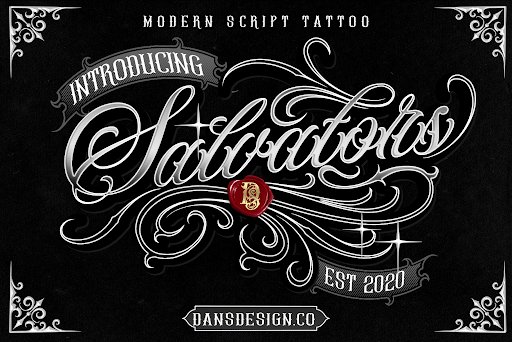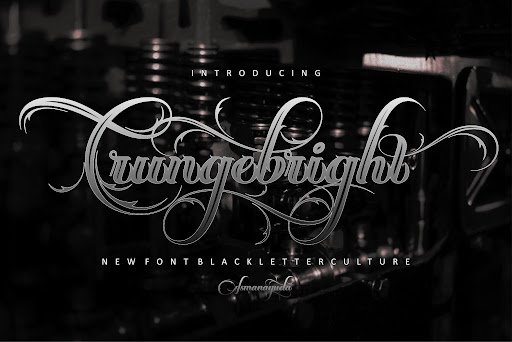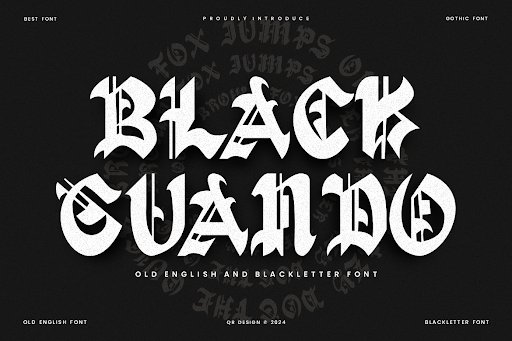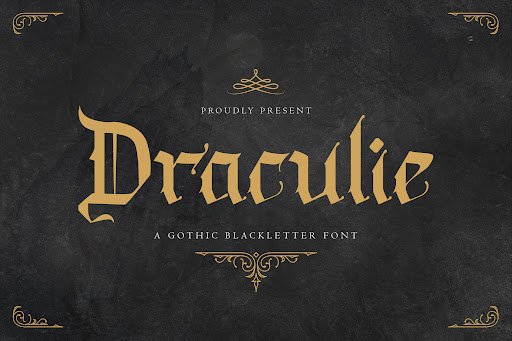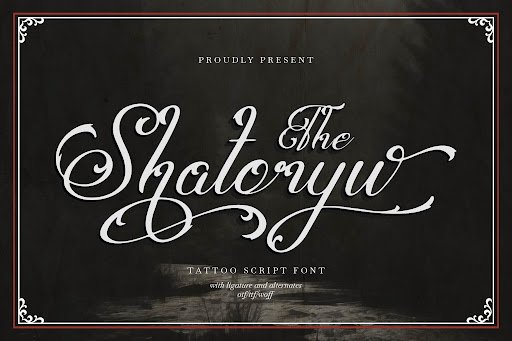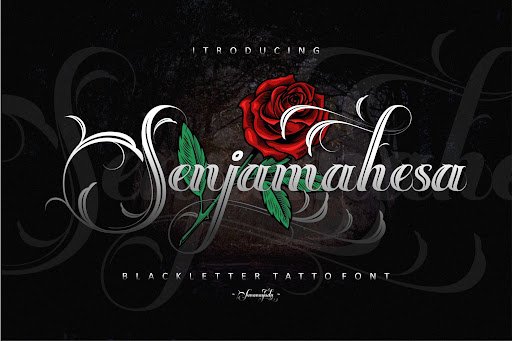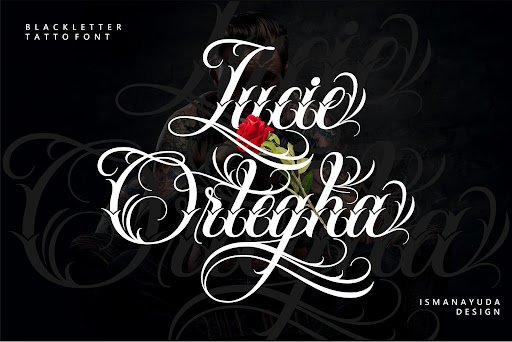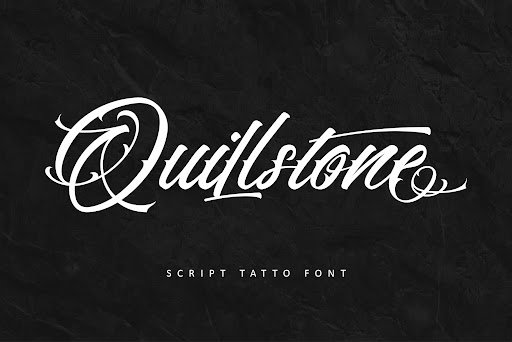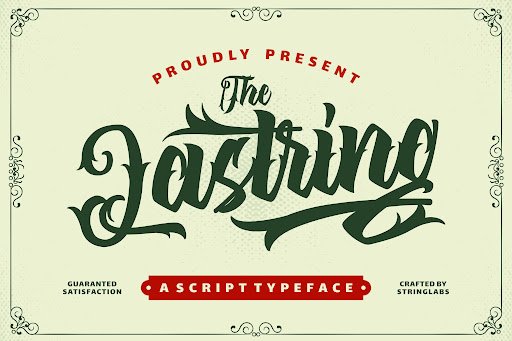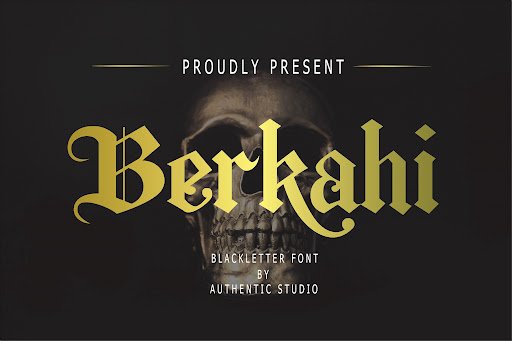
19 Killer Tattoo Fonts to Elevate Your Next Ink Design (2026)
Whether you are a professional tattoo artist drafting a custom sleeve or someone planning their very first piece of ink, choosing the perfect typography is crucial to the design’s impact. The right lettering can transform a simple quote or name into a breathtaking work of art that lasts a lifetime. Explore this carefully curated collection of the best tattoo fonts available today, designed to bring your boldest visions to life.
1. Salvators Font by Dansdesign
Salvators by Dansdesign is a powerful, striking font that captures the raw essence of traditional tattoo artistry. Its intricate details and bold strokes make it an ideal choice for large chest pieces or dominant back tattoos where the text needs to command attention.
2. Crungebright Font by ismanayuda
Crungebright brings a unique, edgy grunge aesthetic to the world of tattoo typography. Perfect for rebellious or alternative ink designs, this font features distressed textures that look incredibly authentic when translated to the skin.
Created by ismanayuda, Crungebright is versatile enough to be used for band logos, streetwear designs, and, most importantly, badass tattoos. Grab this font today to add a touch of raw, unpolished energy to your next creative project.
3. Black Guando Font by qrdesignstd
If you’re searching for a font that screams classic gothic style, Black Guando is the perfect match. This blackletter-inspired typeface is a favorite for chicano-style tattoos, offering sharp, dramatic angles and elaborate embellishments.
4. Draculie Font by TypeFactory
Draculie channels a dark, mysterious vibe that is perfect for gothic and horror-themed tattoos. Its elegant yet slightly eerie letterforms make it a standout choice for anyone looking to ink something beautifully haunting.
5. Shatoryu Font by Denustudios
Shatoryu is an Asian-inspired brush font that flawlessly mimics the fluid, expressive strokes of traditional calligraphy. It’s the ultimate choice for minimalist tattoos, spiritual quotes, or designs that require a sense of movement and grace.
The sweeping curves and dynamic lines of Shatoryu offer a natural, hand-painted feel that translates beautifully onto the skin. It brings a zen-like balance to any tattoo composition, ensuring the final piece looks both timeless and profoundly personal.
6. Senjamahesa Font by ismanayuda
Senjamahesa is a beautifully crafted script font that offers a touch of elegance and romance, making it highly requested for delicate name tattoos and intricate quote pieces. Its smooth, flowing lines look stunning on forearms, ribs, and collarbones.
7. Lucie Ortegha Font by ismanayuda
Lucie Ortegha brings a sophisticated, vintage cursive style to the tattoo chair. This font is perfect for traditional Americana tattoos or classic, old-school lettering that never goes out of style.
With its perfect balance of thick and thin strokes, Lucie Ortegha ensures high legibility while maintaining a highly decorative aesthetic. It’s a fantastic addition to any designer’s collection, providing endless possibilities for striking body art.
8. Quillstone Font by thomasaradea
Quillstone is a masterful blend of vintage script and modern edge, designed specifically with tattoo artists in mind. Its sweeping swashes and dramatic flourishes make it the ideal candidate for large, statement-making text pieces.
Whether used for a bold chest plate or an intricate sleeve filler, Quillstone demands attention and exudes confidence. This font is fully optimized for cross-platform use, ensuring seamless integration into your digital workflow.
9. The Lastring Font by StringLabs
The Lastring is a phenomenal blackletter font that perfectly captures the gritty, hardcore essence of underground tattoo culture. Its sharp edges and intricate detailing make it an absolute powerhouse for heavy, dark ink designs.
Designed by StringLabs, this typeface is heavily inspired by traditional chicano and gothic lettering, making it a highly sought-after style in modern tattooing. Add The Lastring to your arsenal to create truly unforgettable, rebellious designs.